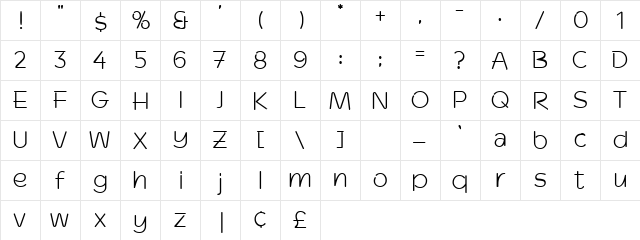
Ozone Normal Font Preview
Ozone Normal
Design Context for Ozone Typeface
Ozone is a composed and adaptable typeface that performs quietly and consistently across a wide range of design contexts.